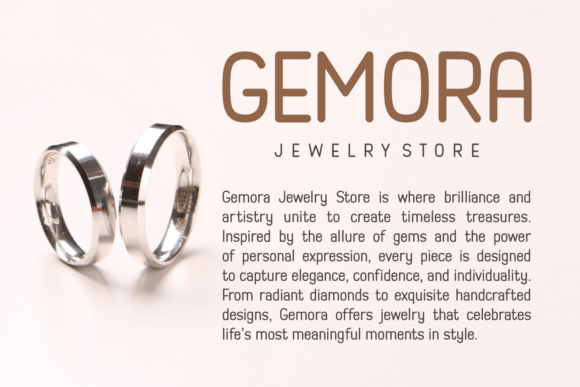
Introducing Golden Useful Font: The Ultimate Sans Serif Solution for Modern Design
In the world of typography, a font can make or break a design project. With the right font, you can convey your brand’s personality, tone, and message with precision and style. This is where Golden Useful Font comes in – a clean, simple, and highly versatile sans serif font designed to meet the demands of modern design. In this article, we’ll explore the features, benefits, and applications of Golden Useful Font, and why it’s the perfect choice for your branding, packaging, social media, and everyday design needs.
Design Philosophy: Clean, Simple, and Versatile
Golden Useful Font is built on a foundation of simplicity and versatility. Its rounded edges and smooth proportions create a friendly yet professional appeal that’s hard to resist. The font’s clean design ensures maximum readability, making it perfect for a wide range of applications, from digital screens to print materials.
The designers behind Golden Useful Font aimed to create a typeface that would be both approachable and modern. They achieved this by striking a balance between rounded edges and sharp lines, resulting in a font that’s both soothing to the eye and engaging to read.
Key Features of Golden Useful Font
- Clean and Simple Design: Golden Useful Font boasts a clean and simple design that’s free from unnecessary embellishments. This makes it perfect for designers who want to convey a clear message without distractions.
- Sans Serif: As a sans serif font, Golden Useful Font is highly legible on digital screens and print materials. Its smooth lines and rounded edges create a friendly and approachable feel.
- Versatile: Golden Useful Font is designed to be versatile, making it suitable for a wide range of applications, from branding and packaging to social media and everyday design needs.
- High Readability: The font’s simplicity and clean design ensure maximum readability, even at small font sizes.
Applications of Golden Useful Font
Golden Useful Font is an incredibly versatile typeface that can be used in various design projects. Here are some of the most popular applications:
- Branding: Use Golden Useful Font to create a strong brand identity that’s both modern and approachable. Its clean design and friendly appeal make it perfect for logos, business cards, and letterheads.
- Packaging: Golden Useful Font is ideal for packaging design, particularly for food, beverage, and lifestyle products. Its simplicity and readability ensure that your product information stands out on store shelves.
- Social Media: With the rise of social media, it’s essential to have a font that works well on digital screens. Golden Useful Font is optimized for digital use, making it perfect for social media graphics, blog posts, and online advertising.
- Everyday Design: Golden Useful Font can be used for everyday design needs, such as brochures, flyers, posters, and presentations. Its versatility and readability make it an excellent choice for any design project.
Why Choose Golden Useful Font?
With so many fonts available, why choose Golden Useful Font? Here are some compelling reasons:
- Unique yet Familiar: Golden Useful Font has a unique personality that sets it apart from other sans serif fonts. Its rounded edges and smooth proportions create a friendly appeal that’s both approachable and modern.
- Highly Legible: The font’s simplicity and clean design ensure maximum readability, even at small font sizes.
- Versatile: Golden Useful Font is designed to be versatile, making it suitable for a wide range of applications and design projects.
- Easy to Use: Golden Useful Font is incredibly easy to use, even for designers who are new to typography. Its clean design and simple structure make it easy to pair with other fonts and design elements.
Tips for Using Golden Useful Font
Here are some tips for using Golden Useful Font effectively in your design projects:
- Pair with Other Fonts: Golden Useful Font works well with other fonts, particularly those with a similar clean and simple design. Experiment with different font combinations to create a unique visual identity.
- Experiment with Font Sizes: Golden Useful Font is highly legible at various font sizes. Experiment with different font sizes to create visual hierarchy and emphasize important information.
- Use for Body Text: Golden Useful Font is perfect for body text, particularly for digital content. Its simplicity and readability ensure that your readers stay engaged.
- Add a Personal Touch: Golden Useful Font has a friendly appeal that works well for personal and creative projects. Add a personal touch to your designs by experimenting with different colors, textures, and graphics.
Golden Useful Font is a versatile and highly legible sans serif font designed for modern design needs. Its clean and simple design, rounded edges, and smooth proportions create a friendly yet professional appeal that’s perfect for branding, packaging, social media, and everyday design projects. With its high readability, ease of use, and unique personality, Golden Useful Font is an excellent choice for designers who want to create stunning visual identities.